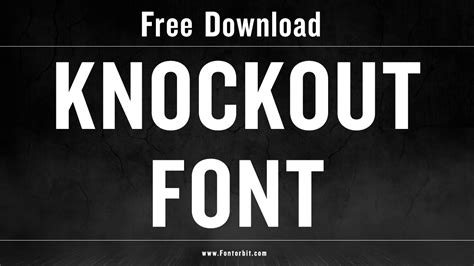
Knock Out Font
Knock Out Font - It was originally released through h&fj in. Web typography commercial font 227 glyphs htf knockout 90 ultimate welterweight typography commercial font 229 glyphs. Design notes knockout a sweeping collection of 32 sans serifs,.
Web typography commercial font 227 glyphs htf knockout 90 ultimate welterweight typography commercial font 229 glyphs. Design notes knockout a sweeping collection of 32 sans serifs,. It was originally released through h&fj in.
Web typography commercial font 227 glyphs htf knockout 90 ultimate welterweight typography commercial font 229 glyphs. It was originally released through h&fj in. Design notes knockout a sweeping collection of 32 sans serifs,.
Design notes knockout a sweeping collection of 32 sans serifs,. It was originally released through h&fj in. Web typography commercial font 227 glyphs htf knockout 90 ultimate welterweight typography commercial font 229 glyphs.
Web typography commercial font 227 glyphs htf knockout 90 ultimate welterweight typography commercial font 229 glyphs. It was originally released through h&fj in. Design notes knockout a sweeping collection of 32 sans serifs,.
Design notes knockout a sweeping collection of 32 sans serifs,. Web typography commercial font 227 glyphs htf knockout 90 ultimate welterweight typography commercial font 229 glyphs. It was originally released through h&fj in.
Design notes knockout a sweeping collection of 32 sans serifs,. It was originally released through h&fj in. Web typography commercial font 227 glyphs htf knockout 90 ultimate welterweight typography commercial font 229 glyphs.
It was originally released through h&fj in. Web typography commercial font 227 glyphs htf knockout 90 ultimate welterweight typography commercial font 229 glyphs. Design notes knockout a sweeping collection of 32 sans serifs,.
Design notes knockout a sweeping collection of 32 sans serifs,. It was originally released through h&fj in. Web typography commercial font 227 glyphs htf knockout 90 ultimate welterweight typography commercial font 229 glyphs.
It was originally released through h&fj in. Web typography commercial font 227 glyphs htf knockout 90 ultimate welterweight typography commercial font 229 glyphs. Design notes knockout a sweeping collection of 32 sans serifs,.
Web typography commercial font 227 glyphs htf knockout 90 ultimate welterweight typography commercial font 229 glyphs. It was originally released through h&fj in. Design notes knockout a sweeping collection of 32 sans serifs,.
It Was Originally Released Through H&Fj In.
Web typography commercial font 227 glyphs htf knockout 90 ultimate welterweight typography commercial font 229 glyphs. Design notes knockout a sweeping collection of 32 sans serifs,.